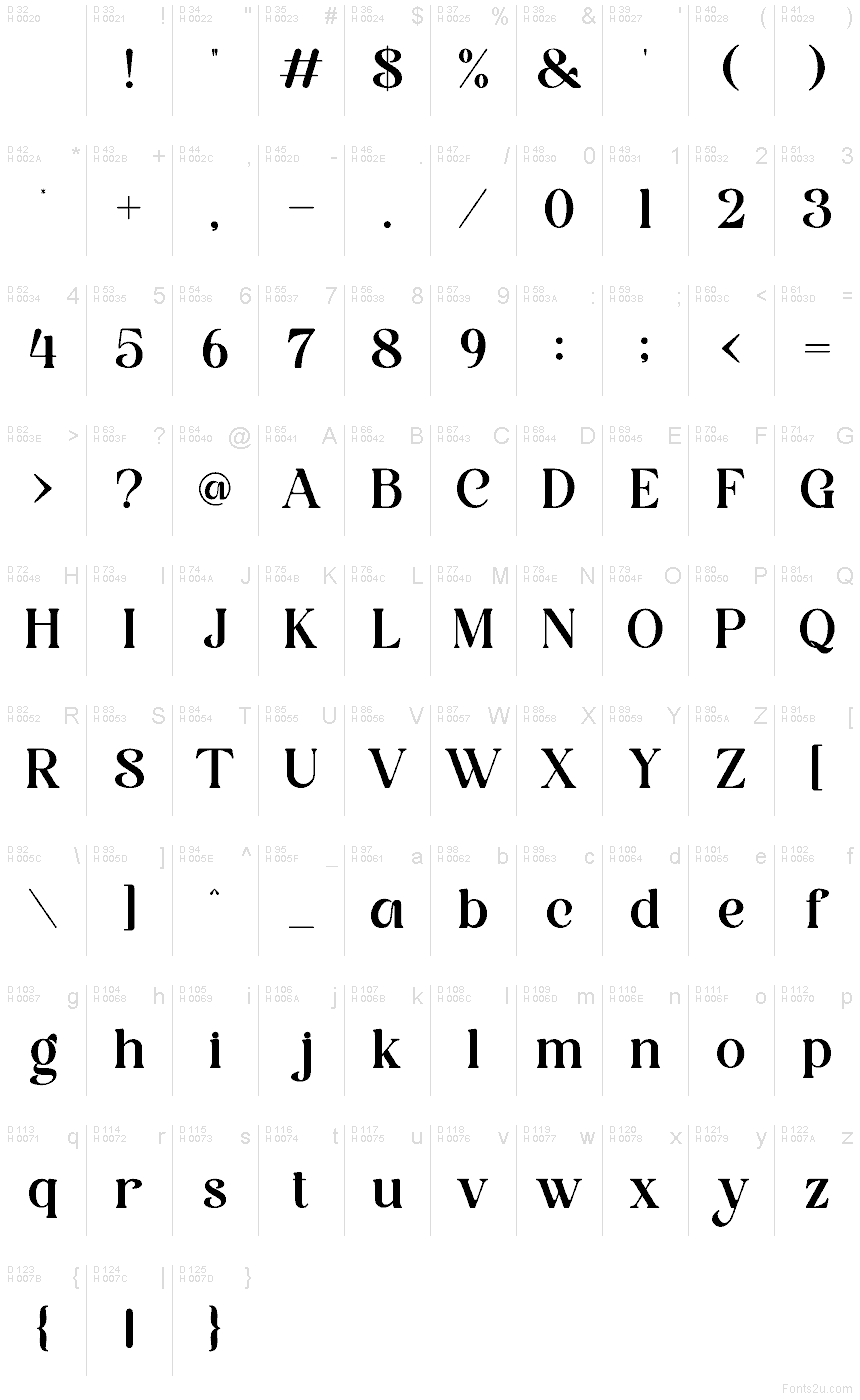
Thency
Thency font by Ermedia Studio is a free high‑contrast serif display font. It stands out with velvet-smooth curves, chiseled verticals, and indulgent ball terminals that land like inky commas. The serifs feel sculpted rather than stamped—bracketed, slightly flared, and confident—while the rhythm between heavy stems and hairline thins keeps headlines crisp without going brittle.
Using Thency, you get luxe presence at a glance, which shines on boutique logos, fashion and beauty packaging, editorial headlines, magazine mastheads, wedding suites, and hero banners. Generous counters and poised proportions deliver drama without noise. This free font pairs beautifully with a neutral grotesk for body copy; set Thency large with a touch of letterspacing to let those curves breathe.